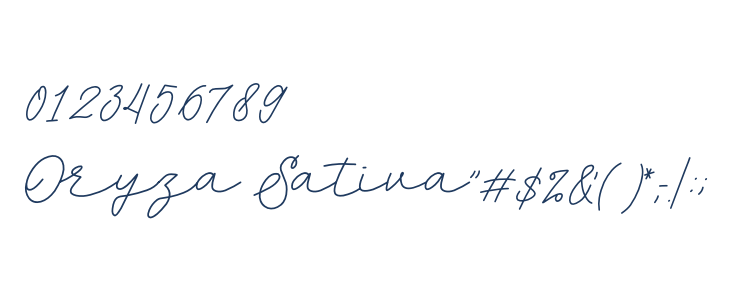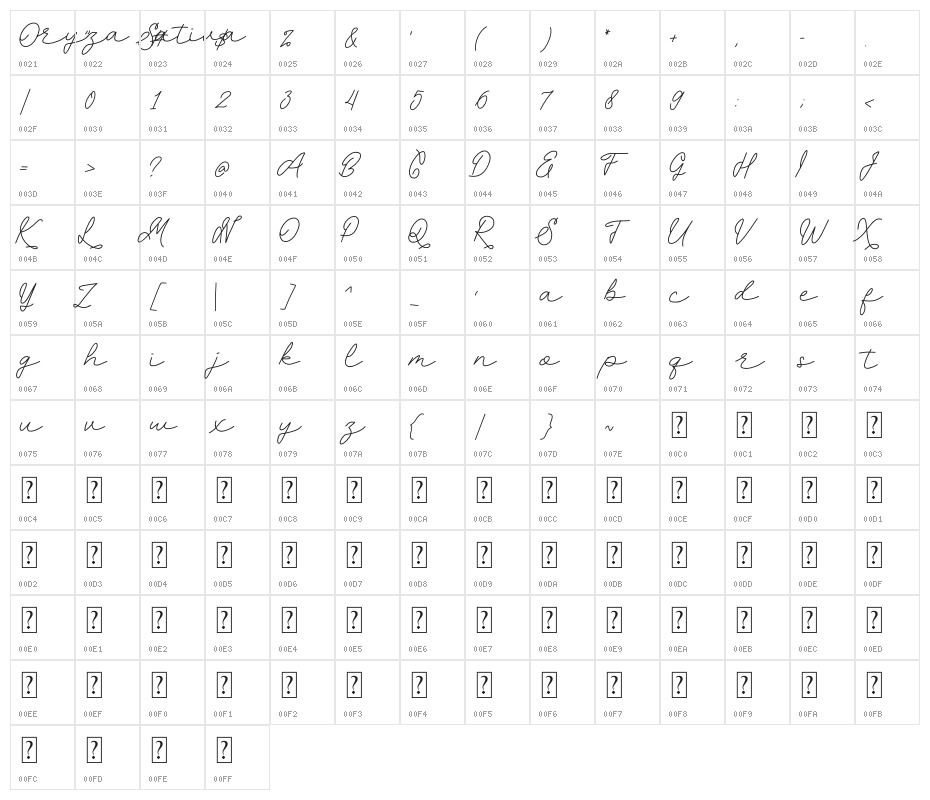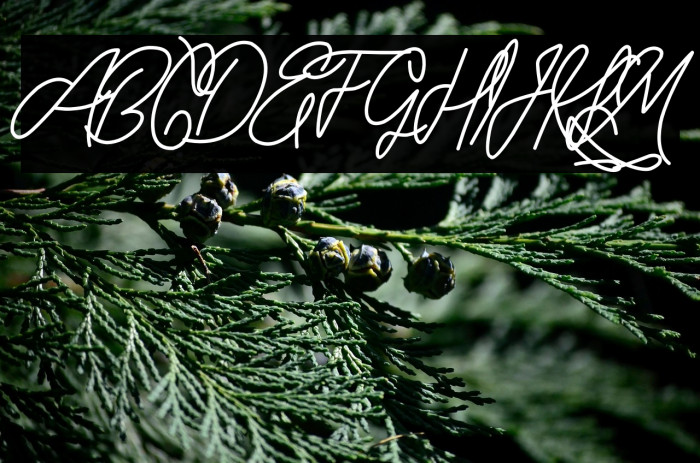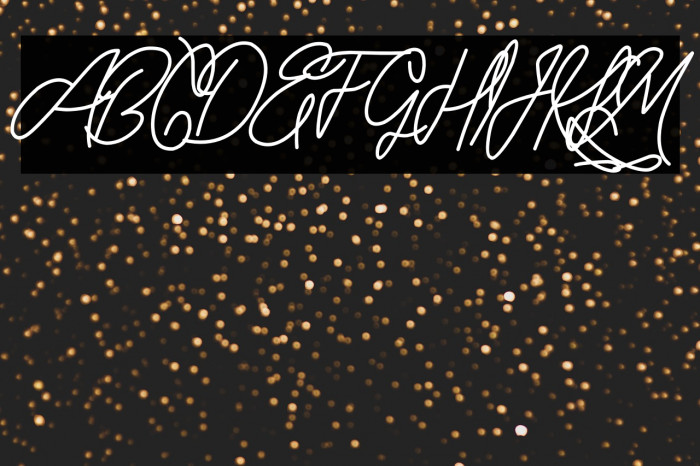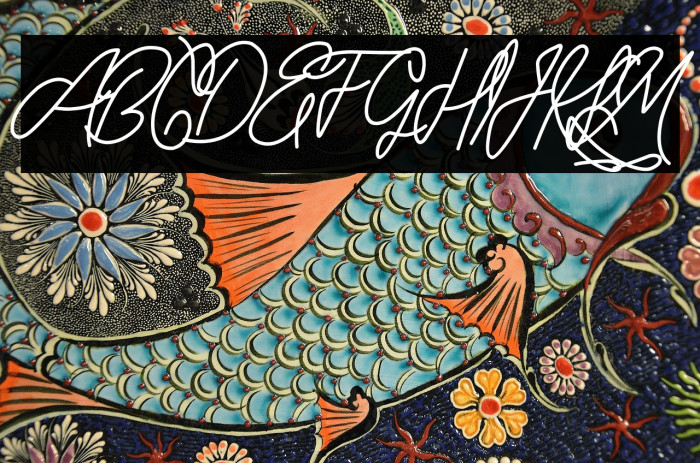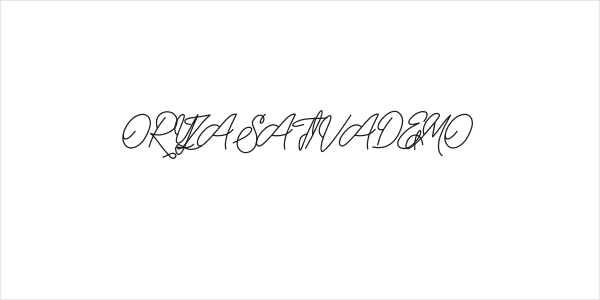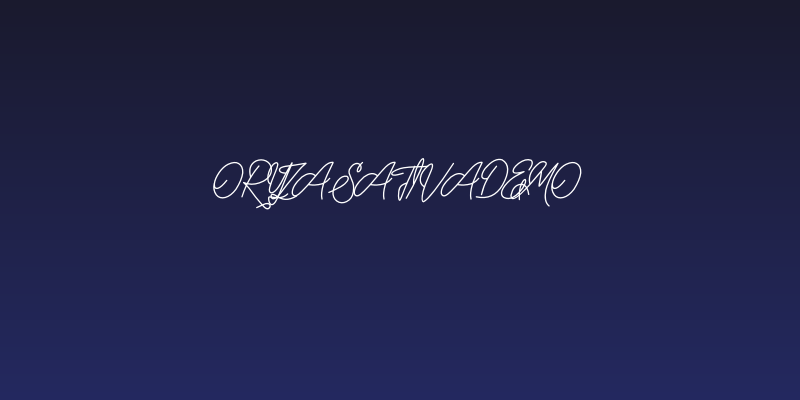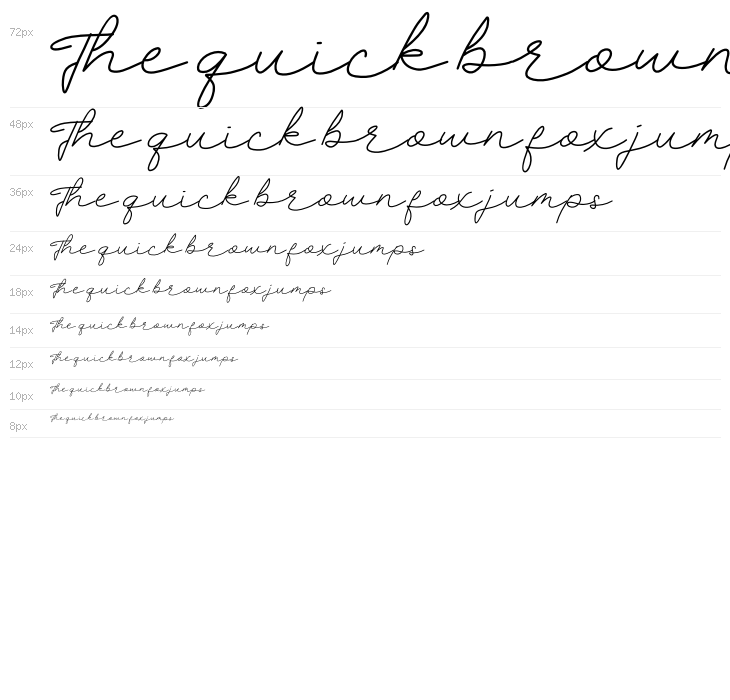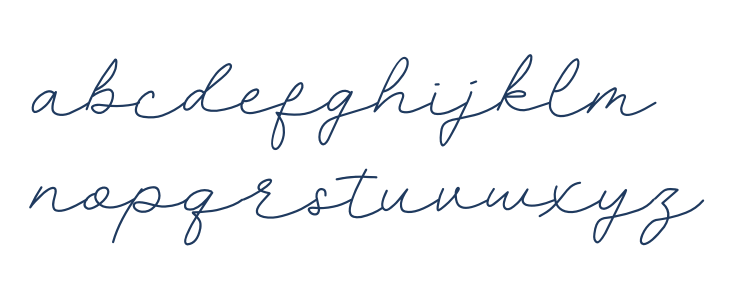
ORYZA SATIVA DEMO Font
ORYZA SATIVA DEMO Description
This elegant script font features a fluid, cursive style that mimics the natural flow of handwriting. The uppercase letters are bold and sweeping, with intricate loops and flourishes that add a touch of sophistication. The lowercase letters maintain a consistent slant and are connected, enhancing the handwritten aesthetic. The numerals are clear and legible, maintaining the same cursive style. Special characters are included, matching the overall elegant and flowing design. This font is perfect for projects that require a personal touch, such as invitations, greeting cards, or branding materials.
| Overall Style | Elegant, Handwritten |
| Proposed Projects | Ideal for wedding invitations, personal branding, greeting cards, and elegant signage. |